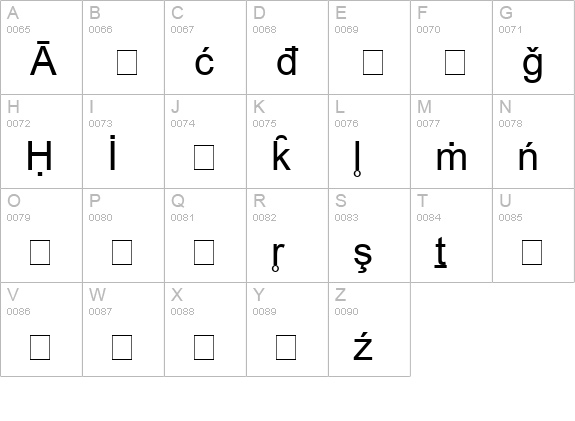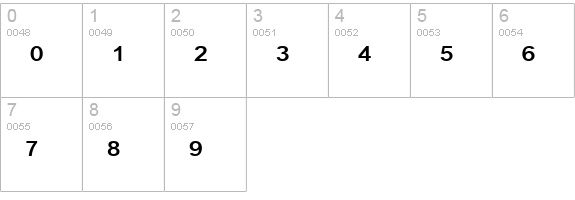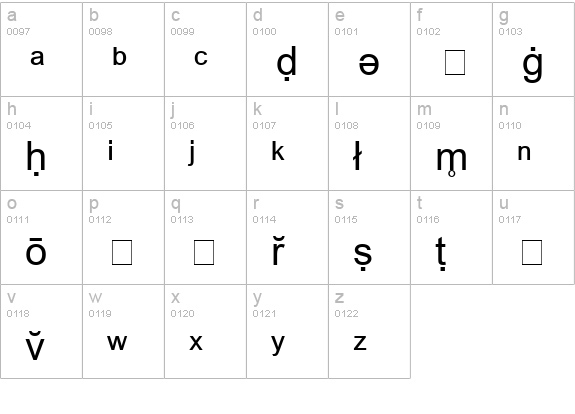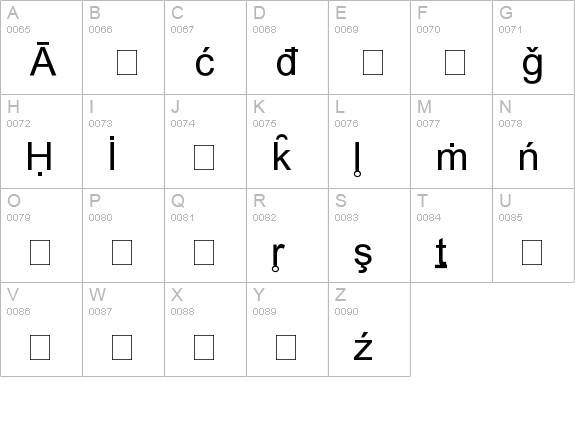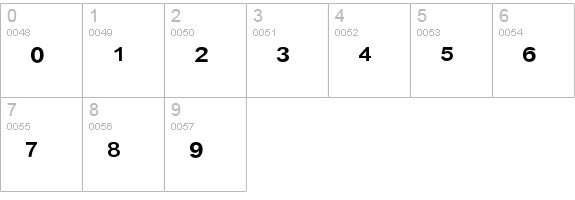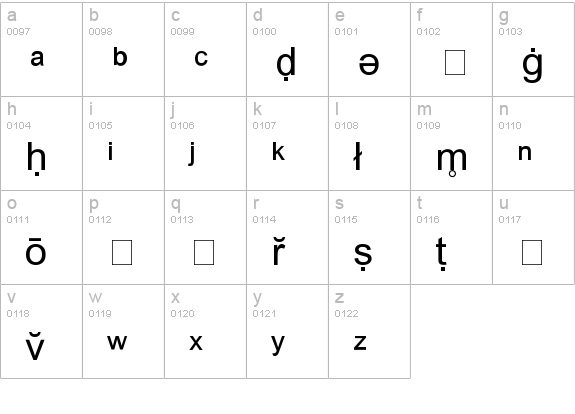
Bookshelf Symbol 1 is a versatile and distinctive font that adds a touch of elegance to any project. With its clean lines and classic design, this font is perfect for creating eye-catching headlines, titles, and logos. The Bookshelf Symbol 1 font exudes a sense of sophistication and style, making it an excellent choice for both print and digital designs. Best of all, Bookshelf Symbol 1 is available for free download at FontsMarket.com. Whether you're a designer looking to add a unique flair to your work or a student working on a creative project, this font is a must-have in your collection. Don't miss out on the opportunity to enhance your design projects with the timeless beauty of Bookshelf Symbol 1.